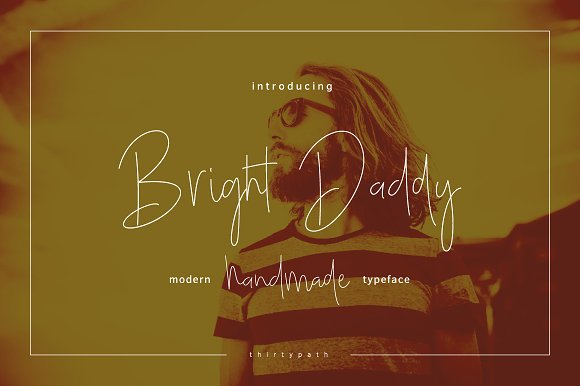
Bright Daddy Font
Step into the realm of creative expression with Bright Daddy Font, a script font family that exudes a unique and captivating charm. Crafted by the talented Thirtypath, this font is a perfect fusion of elegance and playfulness, adding a touch of whimsical appeal to your digital creations.
With its delicate hairlines and subtle curves, Bright Daddy Font dances across the page, evoking a sense of joy and wonder. Its versatile nature allows it to adapt seamlessly to a wide range of design projects, from eye-catching logos and branding elements to heartfelt invitations and social media graphics.
Unleash your imagination and let Bright Daddy Font transform your words into works of art. Its thin strokes lend an airy and ethereal touch, while its playful character adds a touch of whimsy to your designs. Whether you're creating content for personal or professional use, Bright Daddy Font is sure to leave a lasting impression.
Experience the magic of Bright Daddy Font today and elevate your designs to new heights!